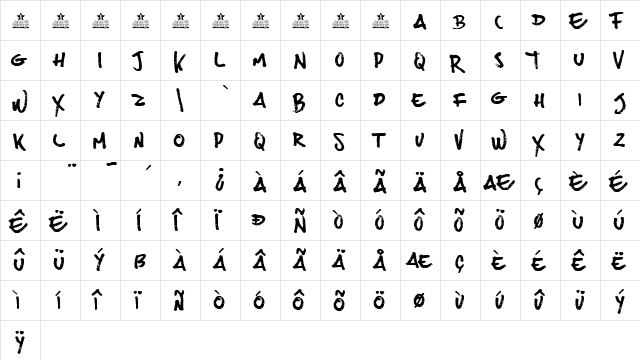
Joes Burger Regular
| Foundry | Billy Argel |
| Designer | Billy Argel |
Design Context for Joes Burger Typeface
Joes Burger is a composed and adaptable typeface that performs quietly and consistently across a wide range of design contexts.